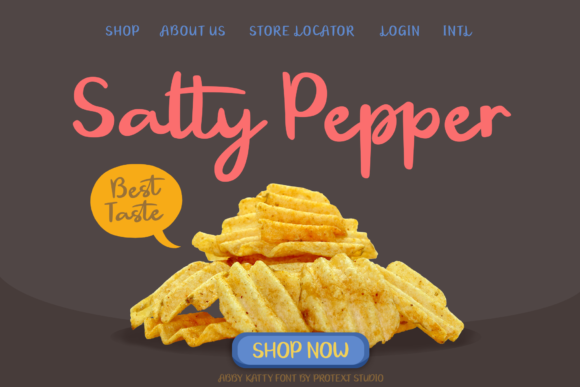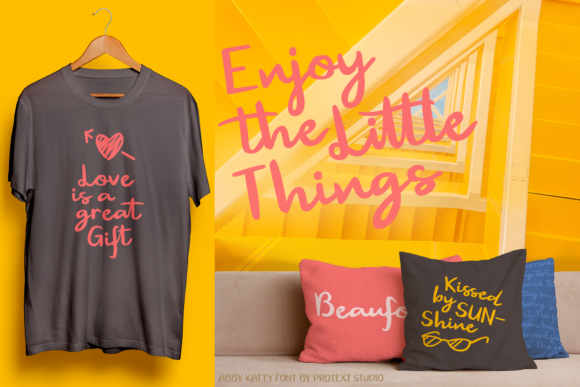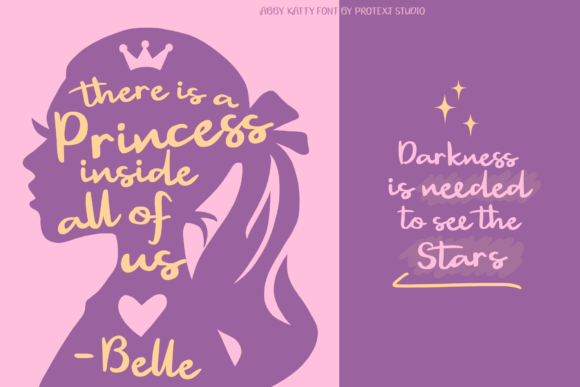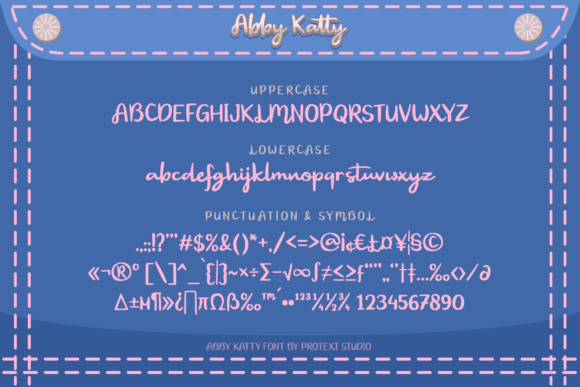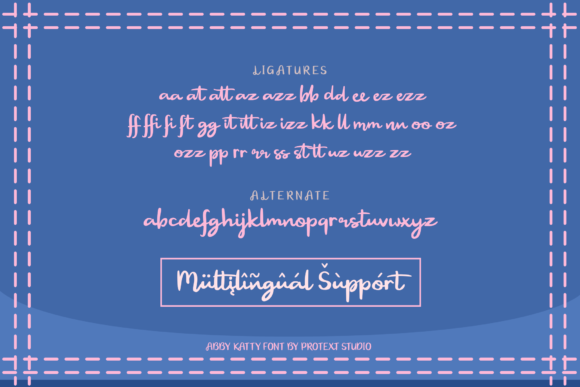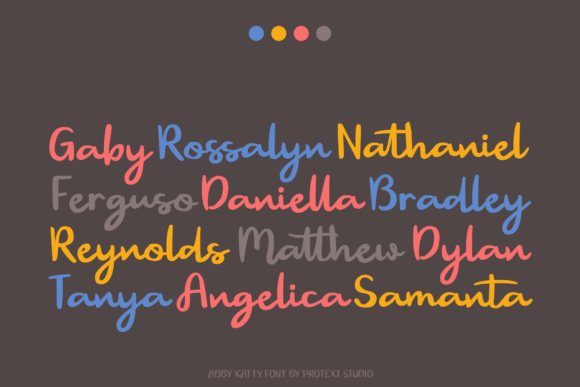
The Elusive Font: My Journey with Abby Katty
I’ll never forget the frustration of working on a branding project for a luxury wedding planner. I had the perfect color palette, the ideal imagery, but I just couldn’t find the right font to tie everything together. That was until I stumbled upon Abby Katty, an exquisite playful elegant handwritten font that instantly became my go-to. In this article, I’ll share my experience with Abby Katty, its features, and how to make the most of this beautiful font.
Abby Katty: A Personal Review
- ✨ Elegant and classy calligraphic influences that add a touch of sophistication to any design
- ✅ PUA encoded, making it easy to access all glyphs and swashes
- 💫 Contemporary and fresh feel that’s perfect for modern designs
- 🎨 Highly versatile and suitable for a wide range of creative projects
While Abby Katty is an amazing font, there are a few things to keep in mind:
- ⚠️ Some users may find the font a bit too ornate for certain projects
- 🤔 Limited use of uppercase letters, which may not be ideal for headings or titles
The Story Behind Abby Katty
Abby Katty was designed with the intention of creating a font that’s both elegant and playful. The designer aimed to craft a font that would be perfect for creative projects, from branding and advertising to wedding invitations and stationery. With its beautiful calligraphic influences and modern feel, Abby Katty has become a favorite among designers and crafters alike.
PUA (Private Use Area) encoding allows font users to access a wide range of glyphs and swashes, making it easier to create unique and customized designs.
Q: Is Abby Katty suitable for body text?
While Abby Katty is a beautiful font, it’s best suited for headings, titles, and short paragraphs. For body text, a clearer font may be more suitable.